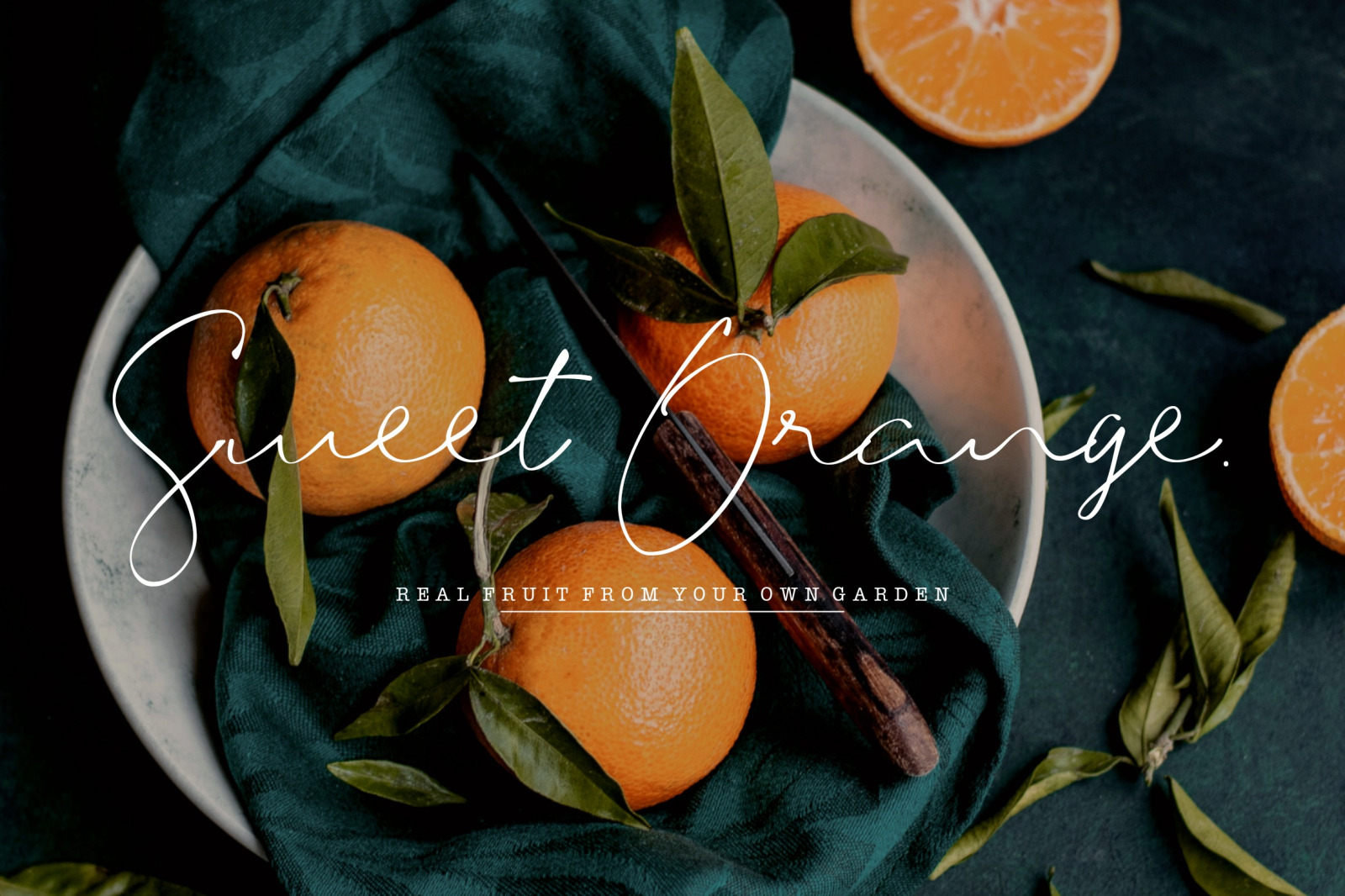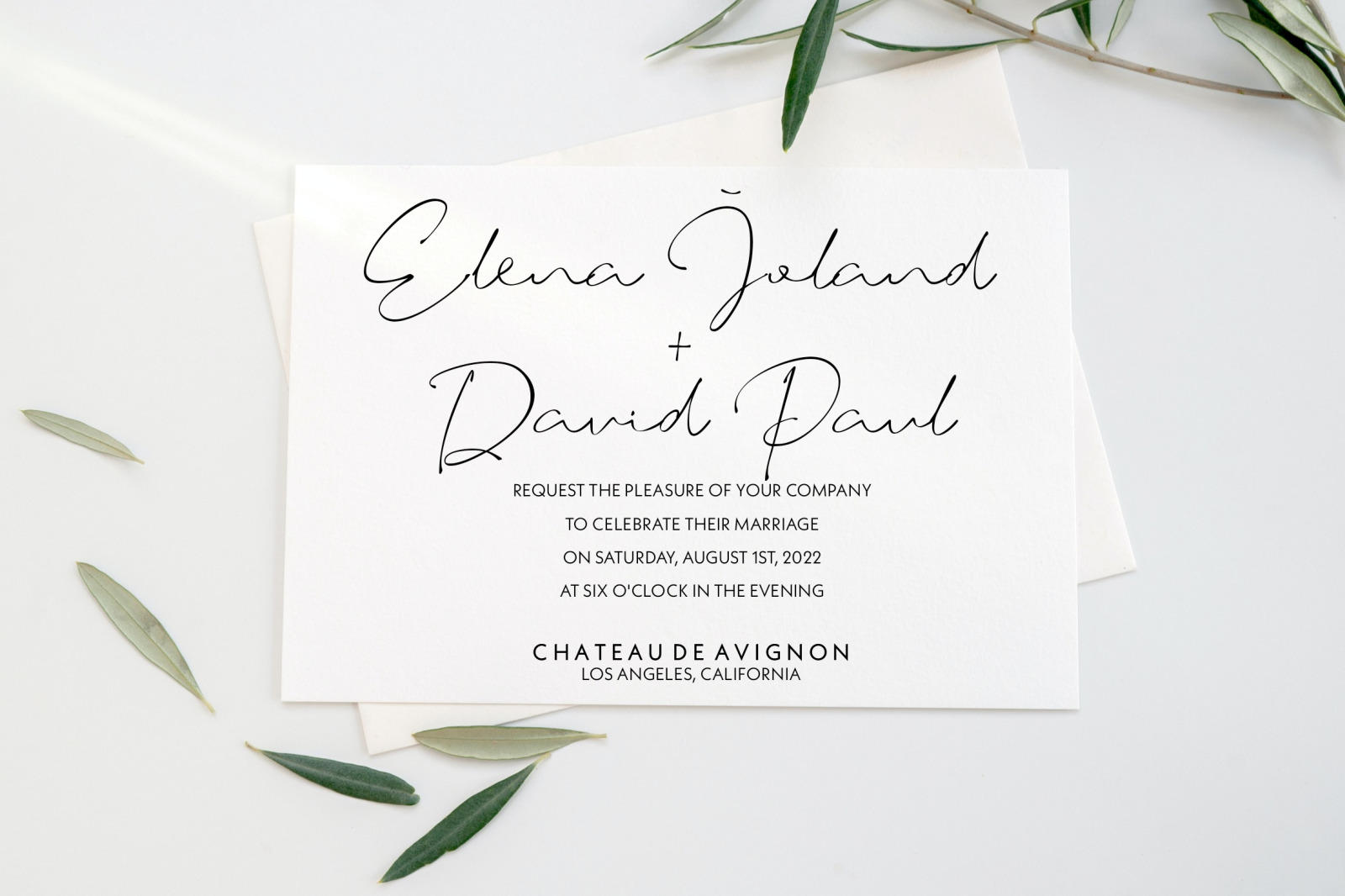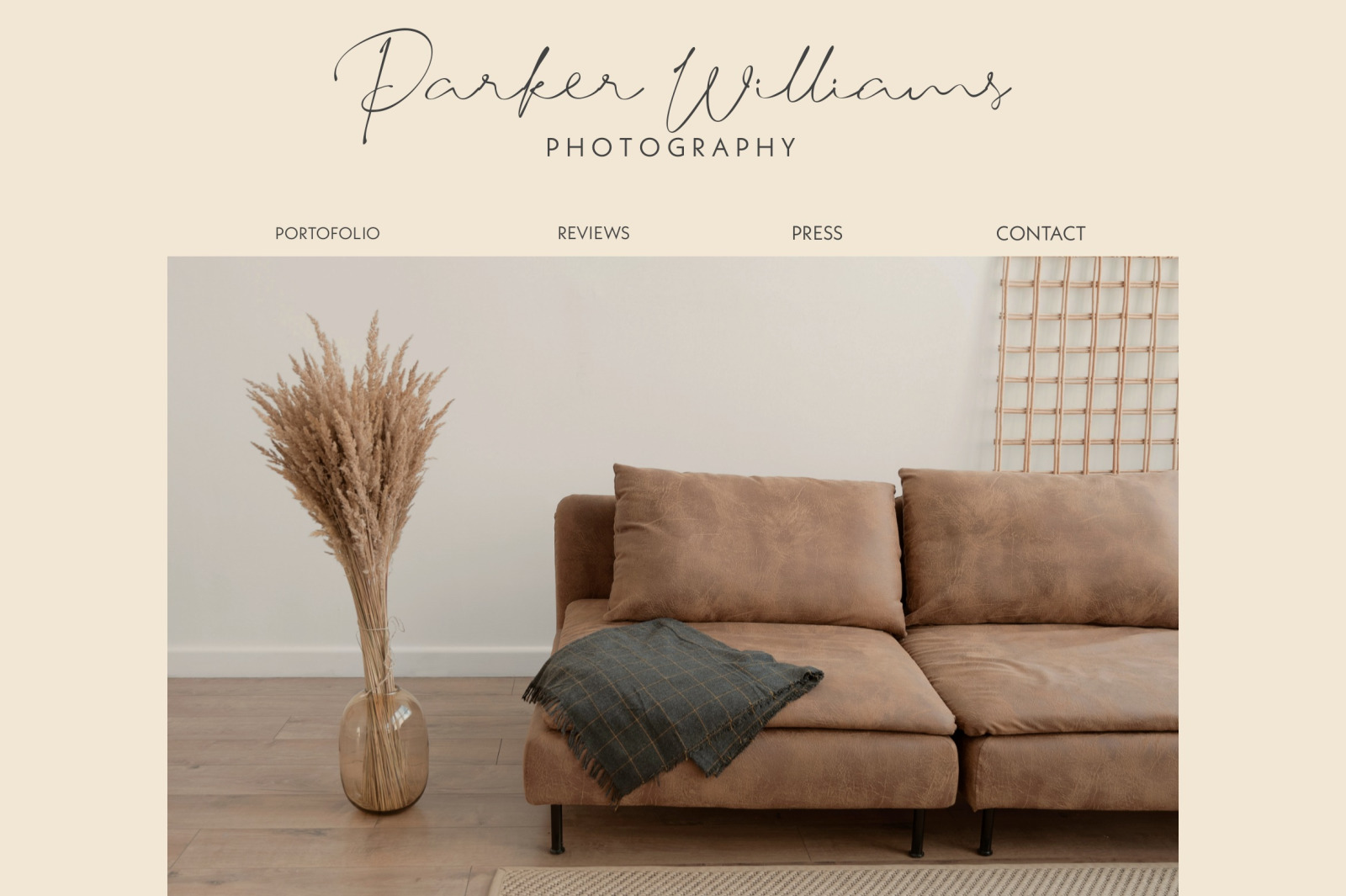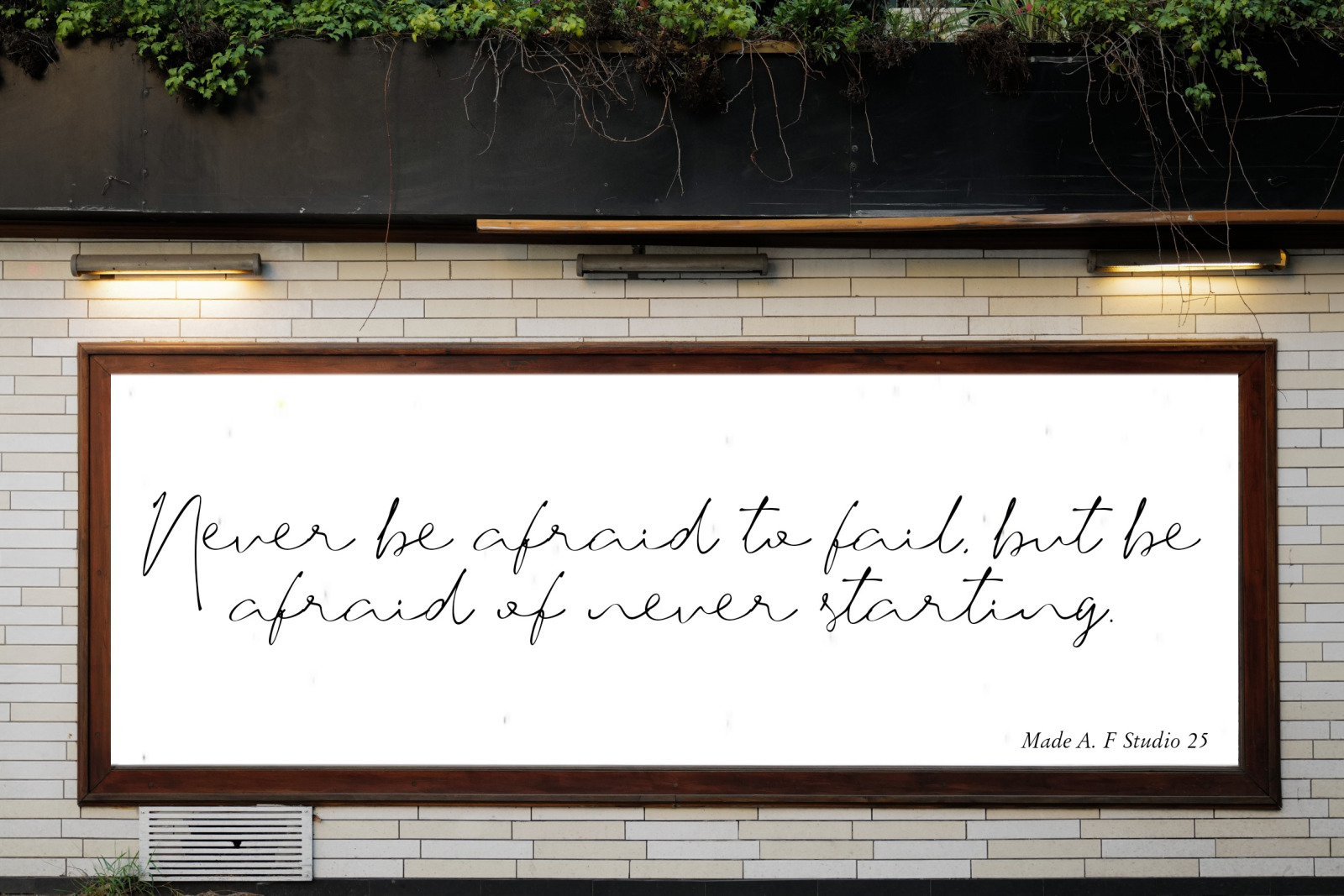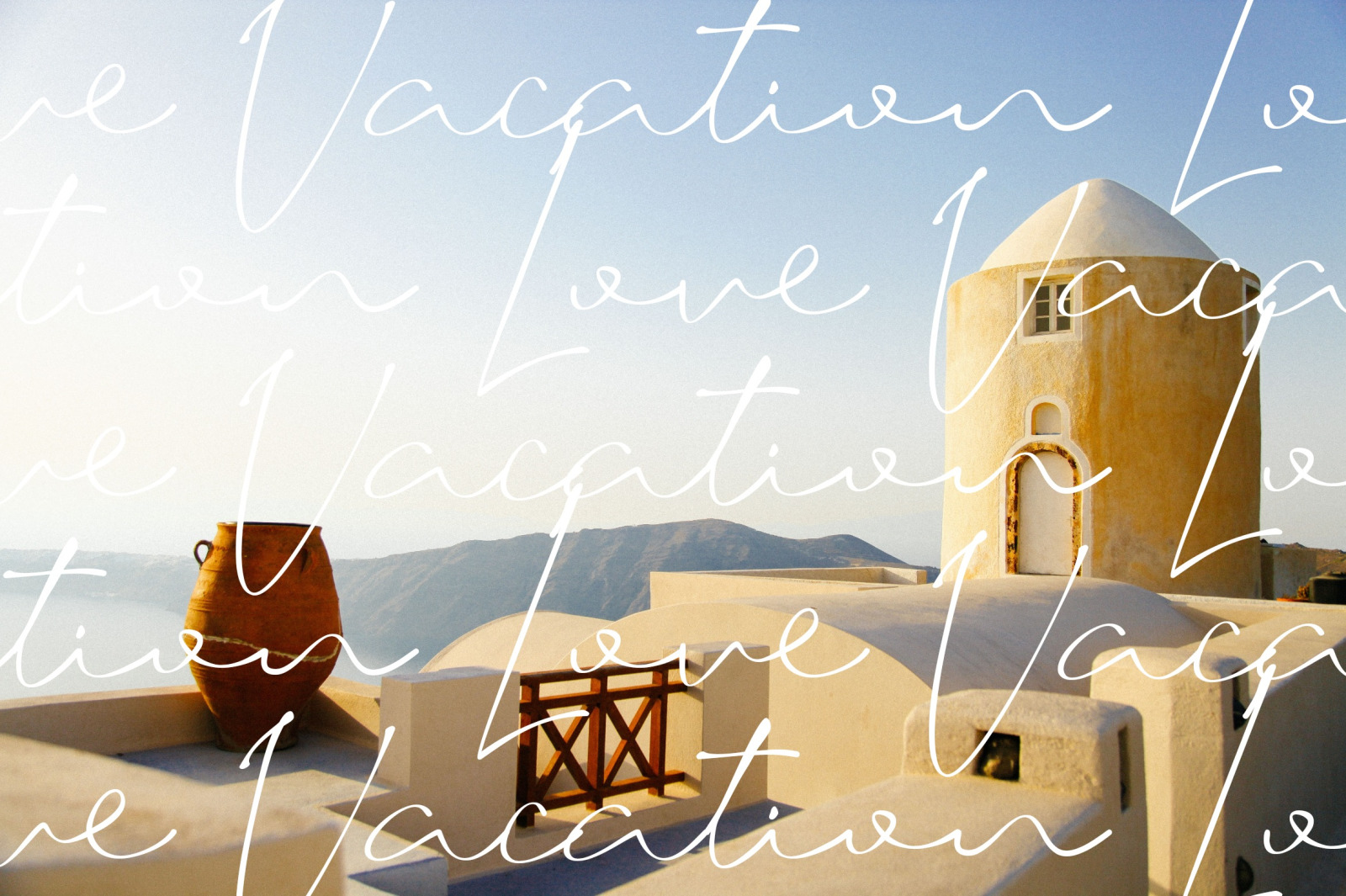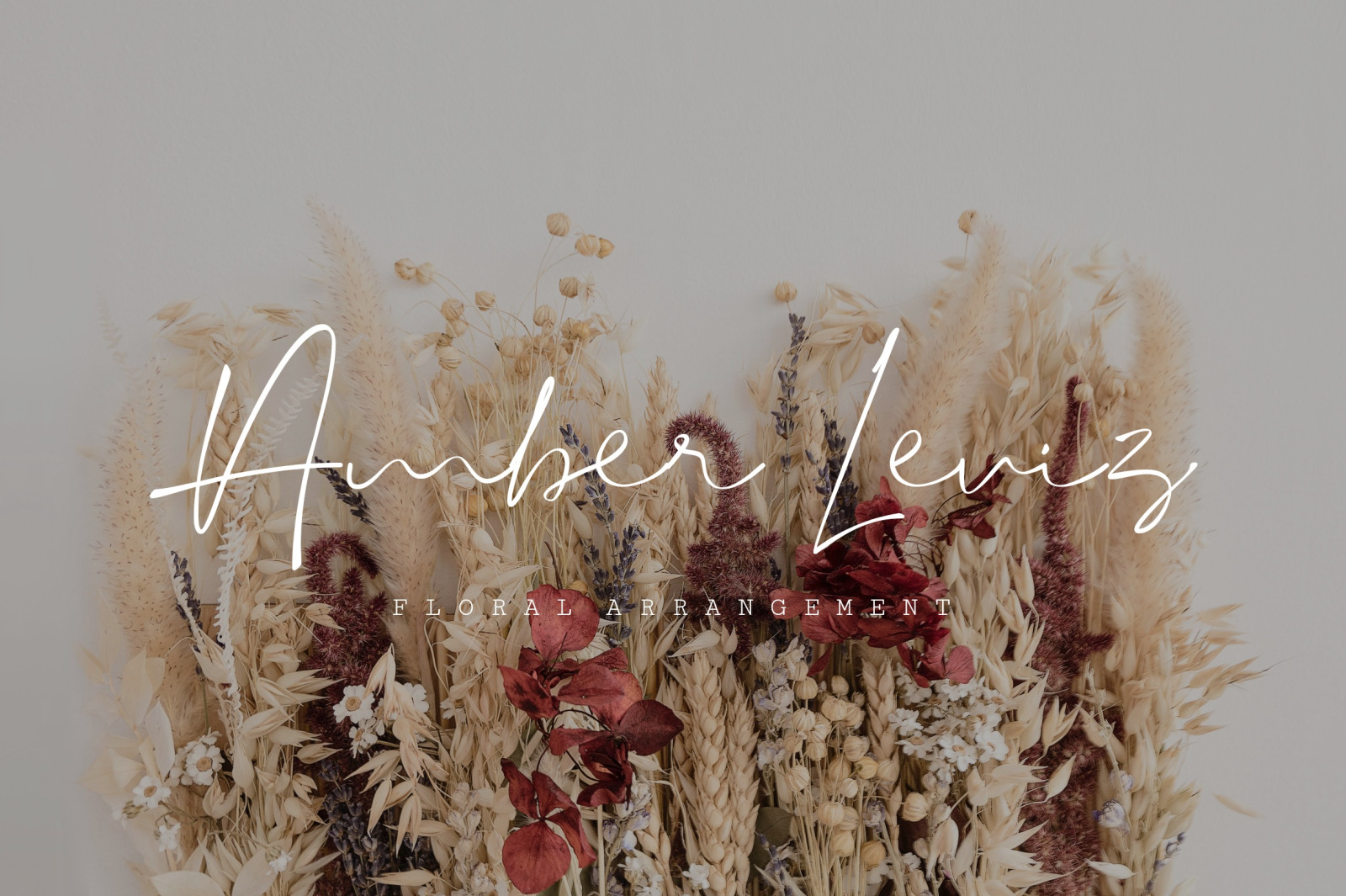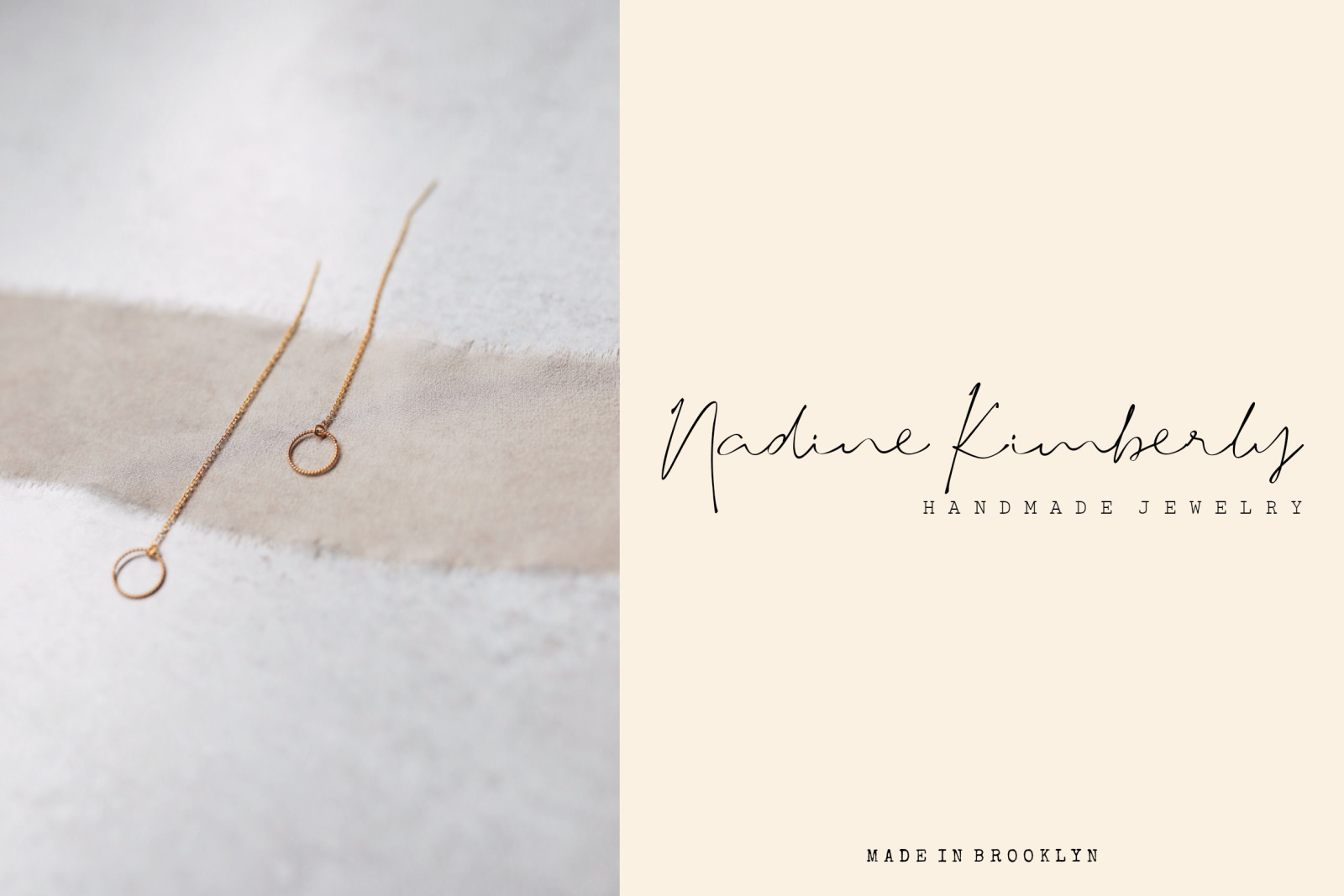
The Brave - Modern Signature Beautiful Font
The Brave - Modern Signature Beautiful Font with Natural handwritten touch by A.F Studio 25.
introducing our new "The Brave" Modern Calligraphy Script with Elegant Style is perfect for branding, logos, invitation, master heads, and more.